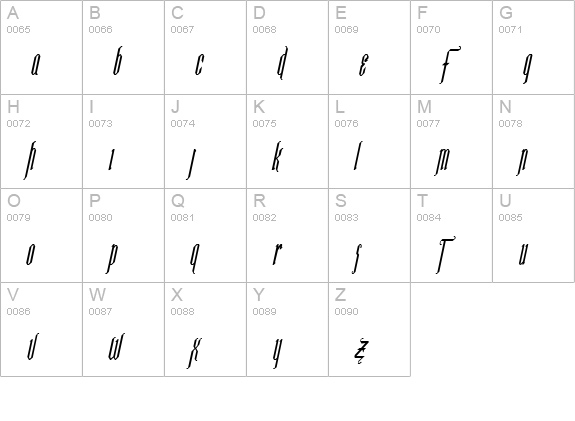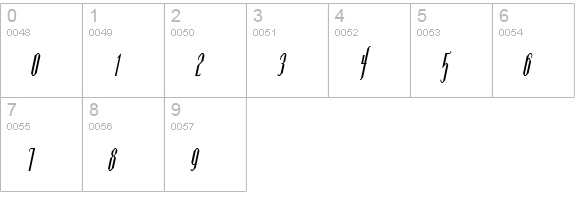
IpswichCondensed Bold Italic Font Details
IpswichCondensed Bold Italic is a strong, high-contrast, italic variant in the IpswichCondensed typeface family \xE2\x80\x94 well suited to headlines, attention-grabbing titles, and strong calls-to-action.
Introducing IpswichCondensed Bold Italic, a captivating and versatile typeface that exudes elegance and sophistication. This font is the perfect choice for designers and creatives seeking a bold and impactful look with a touch of finesse. The IpswichCondensed Bold Italic font effortlessly combines boldness and italics, creating a dynamic and eye-catching aesthetic that commands attention. Its condensed design adds a sense of modernity, allowing for maximum impact in limited space. With its clean lines and distinct curves, IpswichCondensed Bold Italic is suitable for a wide range of design projects, from branding and packaging to editorial layouts and web designs. Whether used for headlines, subheadings, or body text, this font effortlessly adds a touch of sophistication and professionalism to any project. One of the standout features of IpswichCondensed Bold Italic is its versatility. It pairs beautifully with both serif and sans-serif fonts, adding a touch of flair and personality to any typographic composition. The italicized style adds a sense of movement and elegance, making it the perfect choice for adding emphasis or creating a sense of drama in your designs. What sets IpswichCondensed Bold Italic apart is that it is freely available to download at FontsMarket.com. This means that designers and creatives can access this stunning typeface without any financial constraints, making it an ideal choice for both personal and commercial projects. This font allows you to unleash your creativity without worrying about budget limitations, empowering you to bring your vision to life. So, whether you're a seasoned designer looking to elevate your typography game or a beginner exploring the world of fonts, IpswichCondensed Bold Italic is a must-have in your font library. Its boldness, elegance, and availability make it the perfect choice for creating standout designs that leave a lasting impression. Download IpswichCondensed Bold Italic today and embark on a typographic journey that is both bold and beautiful.